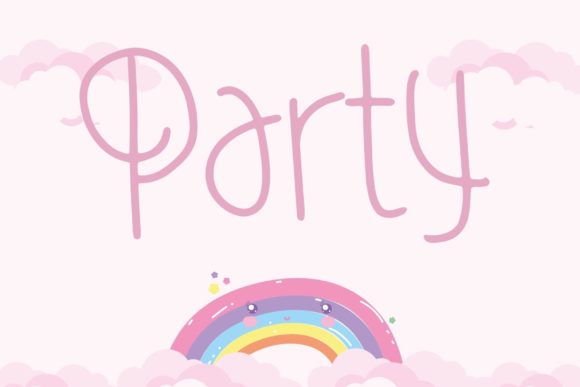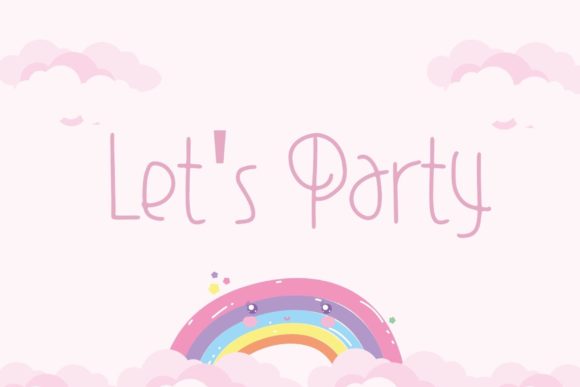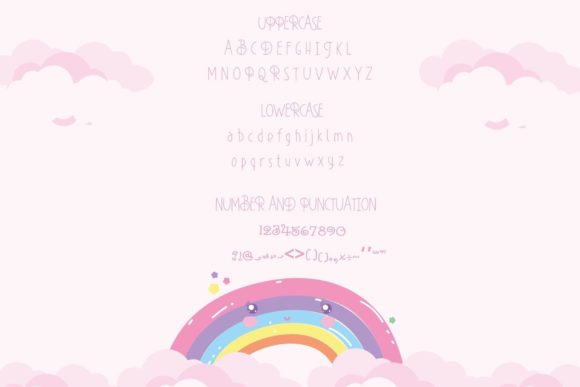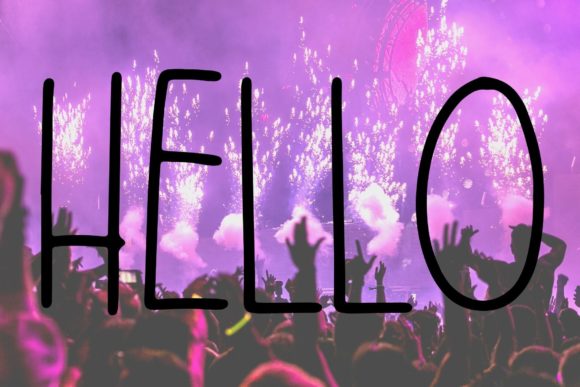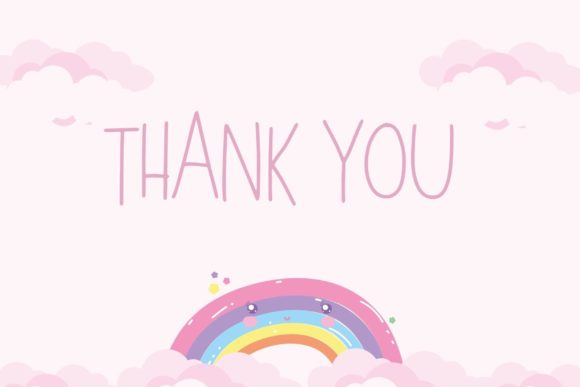
Party Font
About Party Font
“Party” is a cute handwritten font crafted to make your work stand out with its sweet and neat lines. With a playful and charming style, this font is well-suited for a variety of creative projects, including product packaging, branding, magazine covers, social media graphics, weddings, or any design where you want to convey a festive and cheerful atmosphere with a touch of cuteness.
The cute handwritten nature of “Party” adds a personal and whimsical feel to your text, making it perfect for projects that require a lighthearted and celebratory ambiance. The sweet and neat lines contribute to the font’s overall charm, enhancing its suitability for a range of creative applications.
Whether you’re working on product packaging for a party-related product, creating a brand identity for an event, or designing content for social media to promote a celebration, “Party” is versatile enough to adapt to different contexts. Its playful style and festive vibe make it an excellent choice for conveying joy and excitement.
The font’s readability and neat lines ensure that your message is conveyed clearly, making it suitable for various design materials. Whether you’re designing invitations, greeting cards, or adding a touch of cuteness to your social media posts for a special occasion, “Party” can bring a delightful and expressive element to your creative projects.
In summary, “Party” is more than just a font; it’s a cute and handwritten tool that adds sweetness and charm to your designs, especially those related to celebrations. Its versatility makes it suitable for a range of festive projects, allowing you to infuse your creativity with a playful and cheerful vibe. Consider using “Party” for your next product packaging, branding, or social media project, and let its sweet and neat lines make your work stand out with a festive flair.